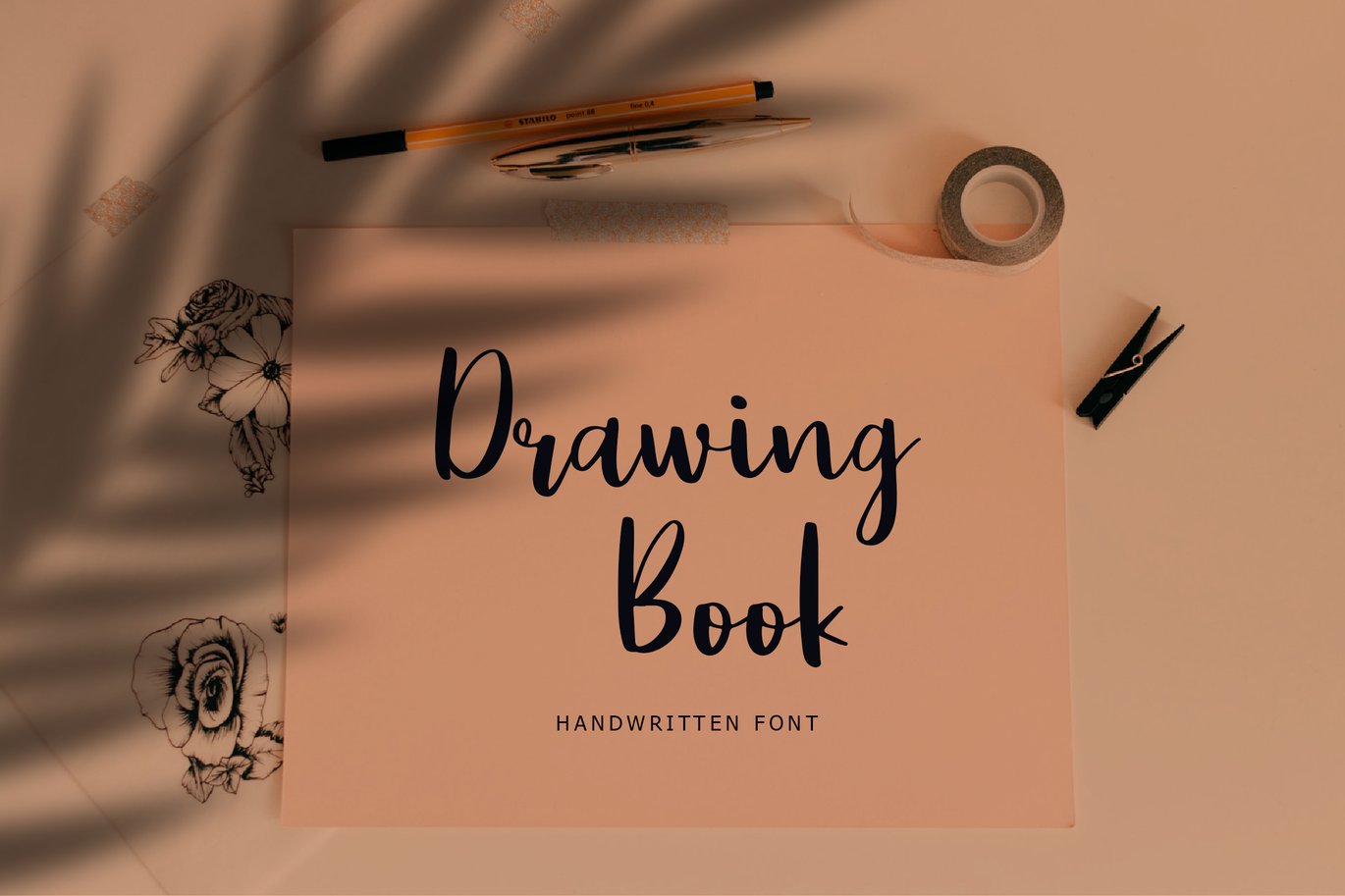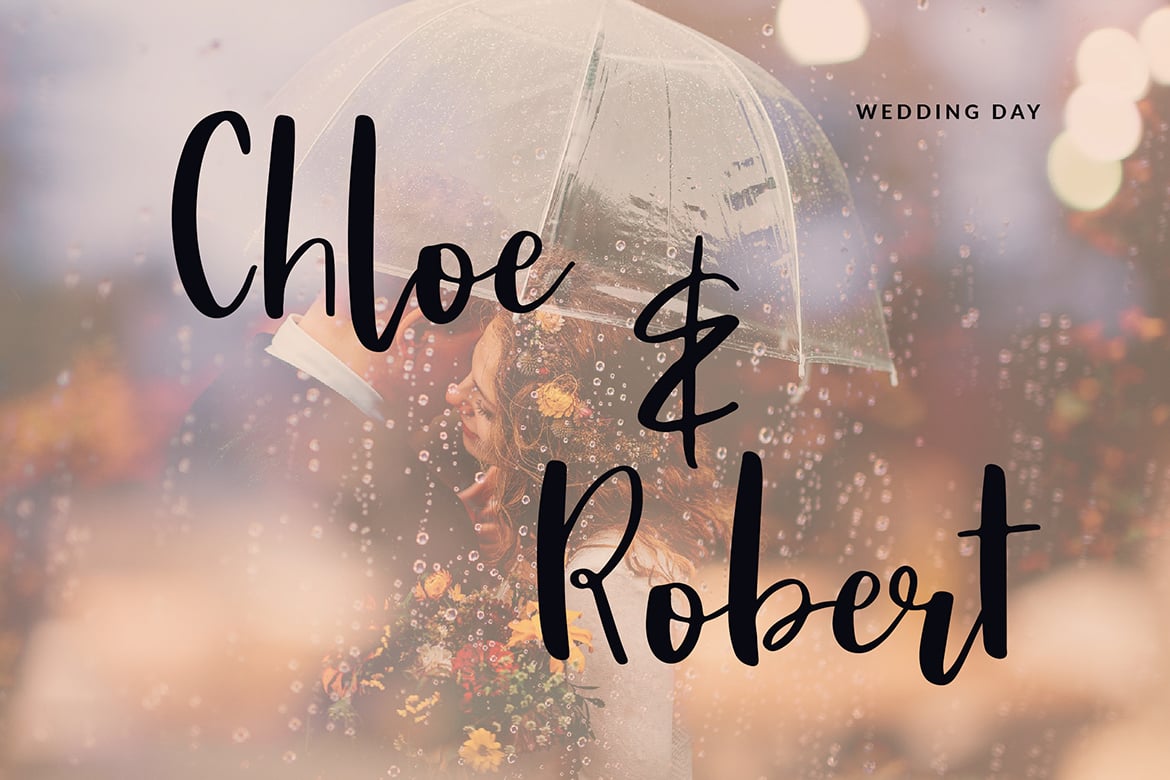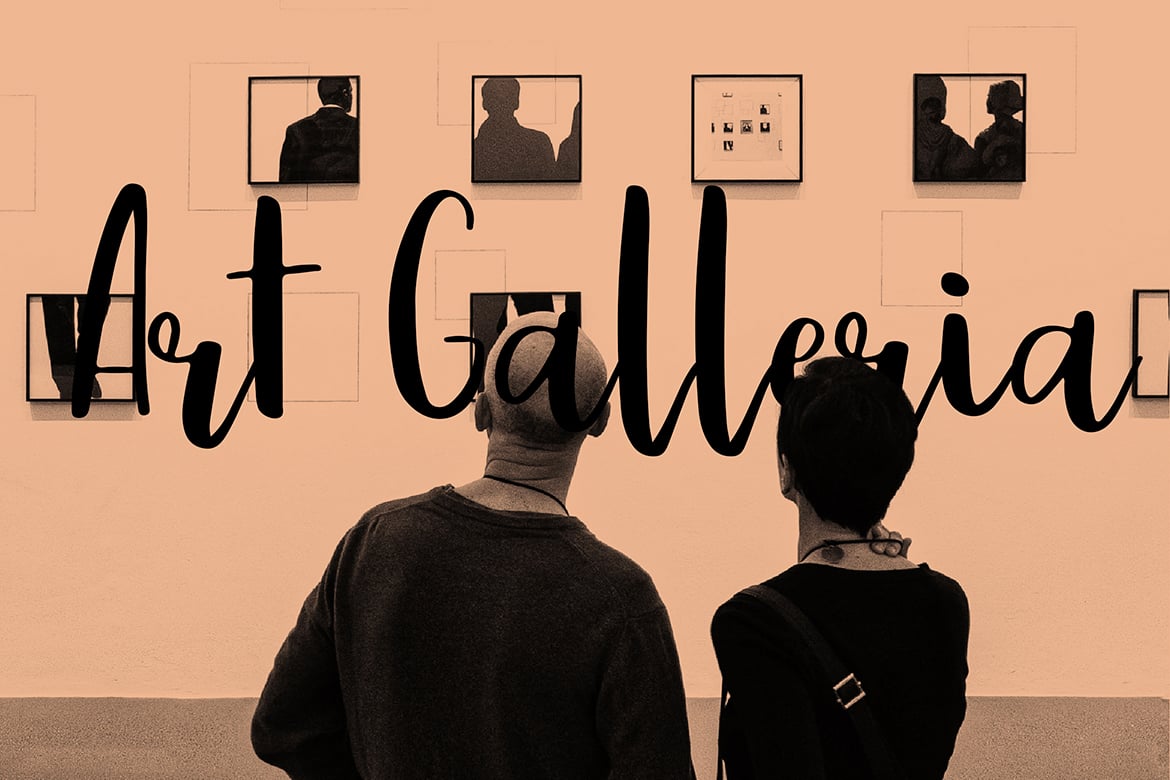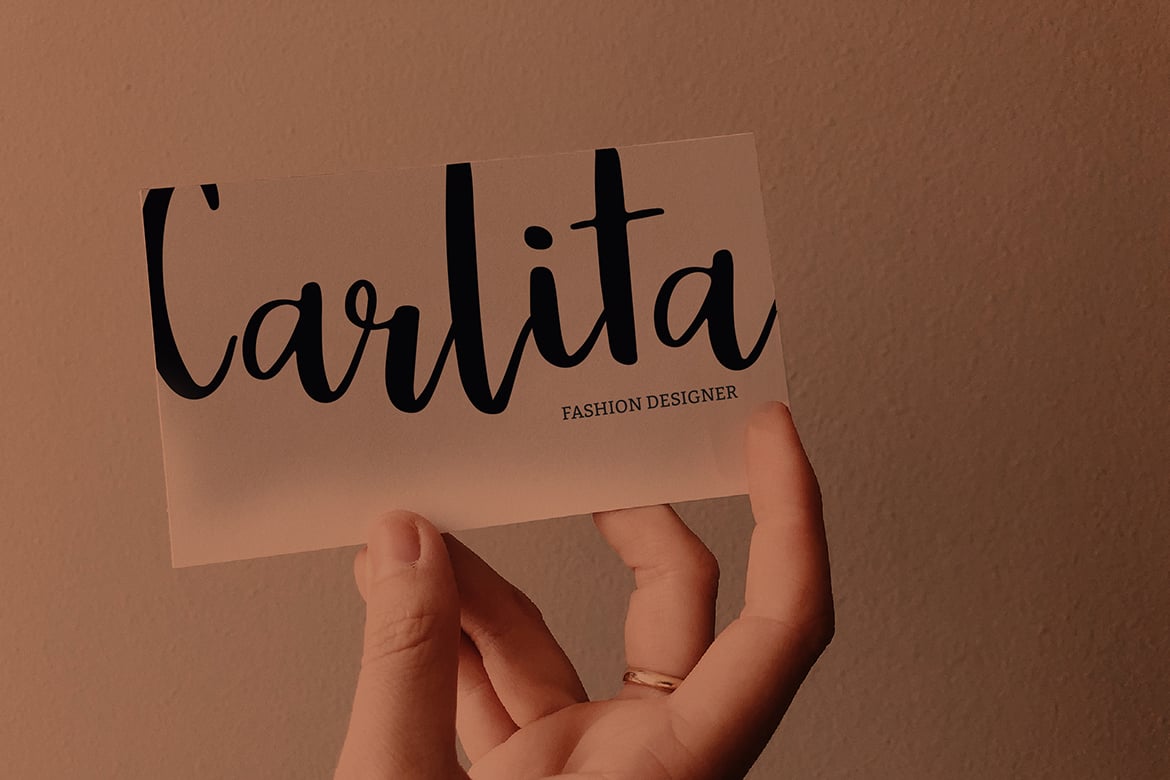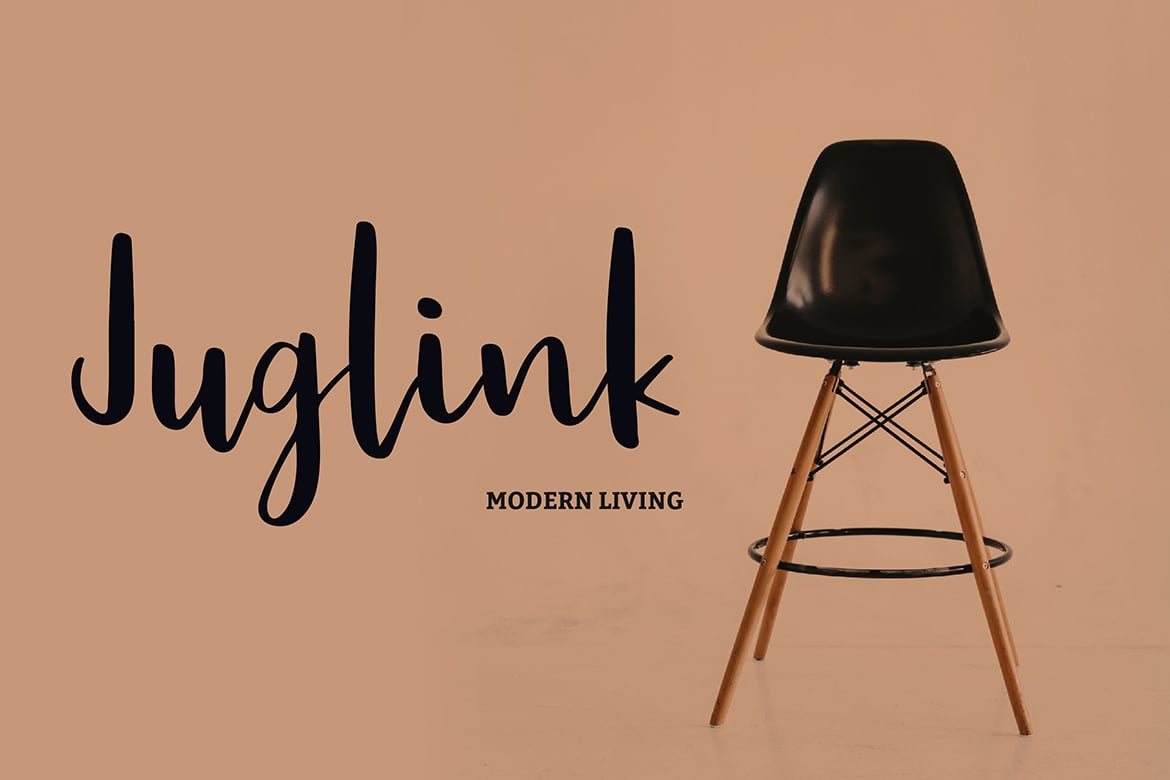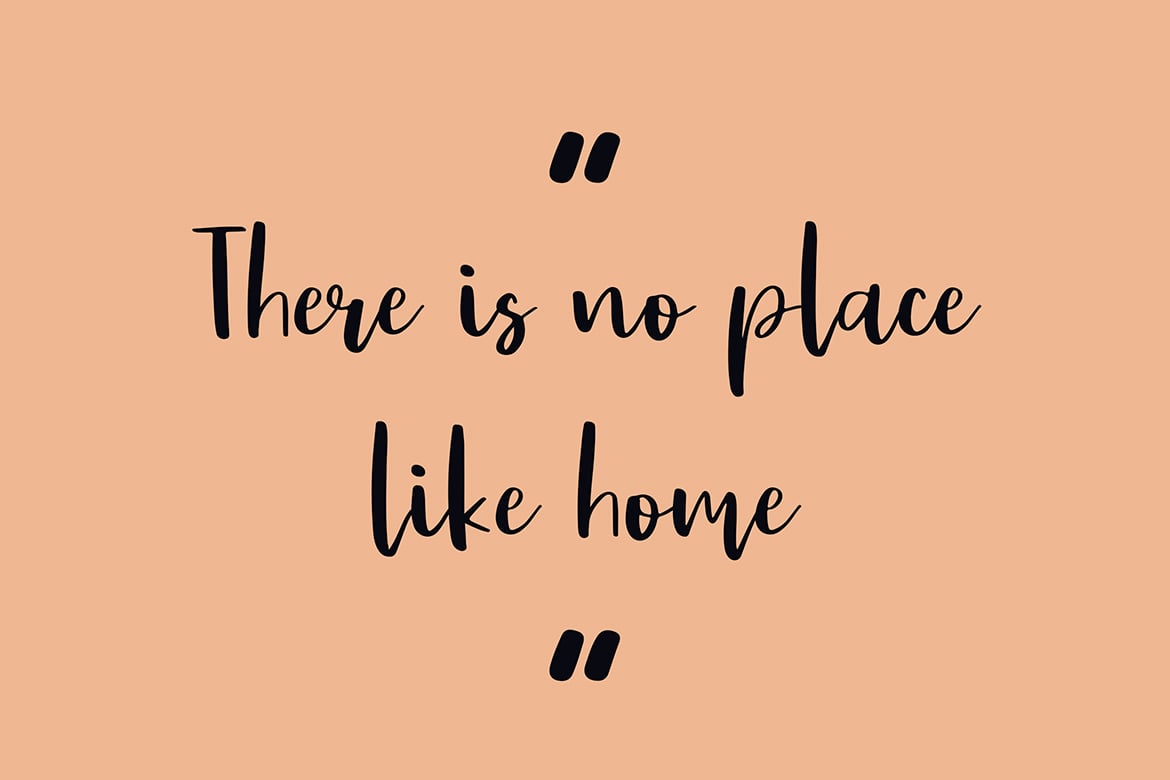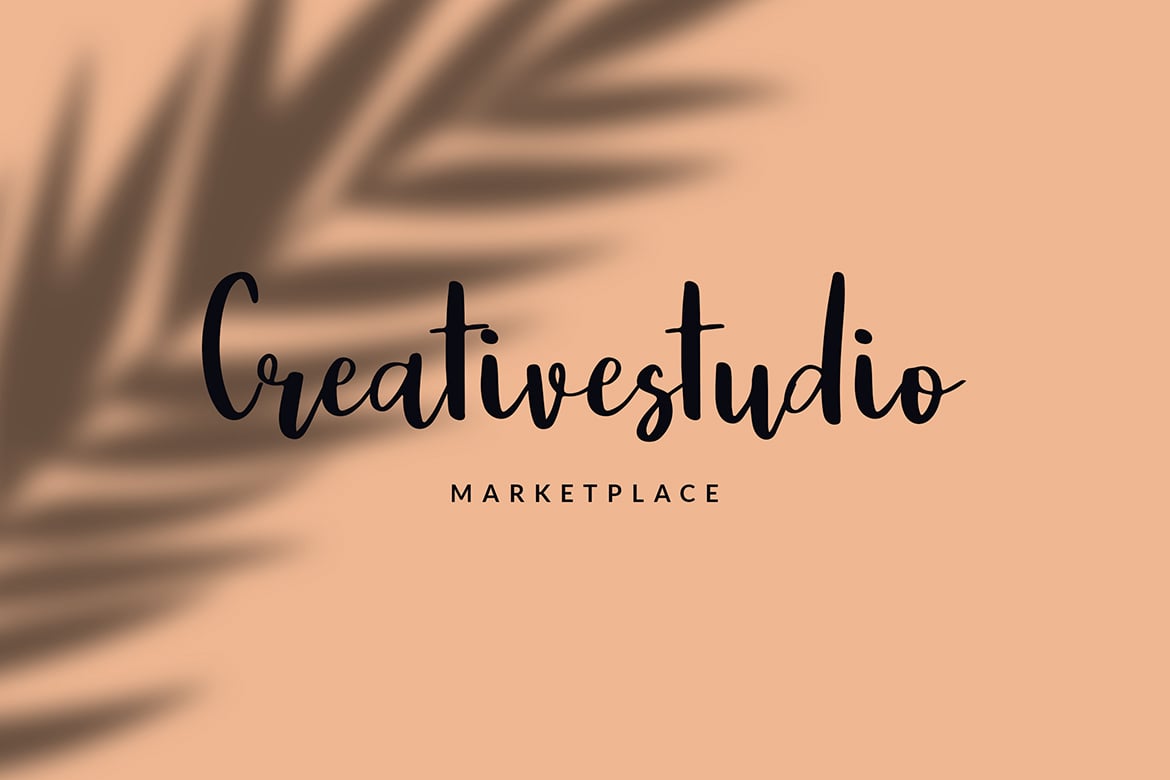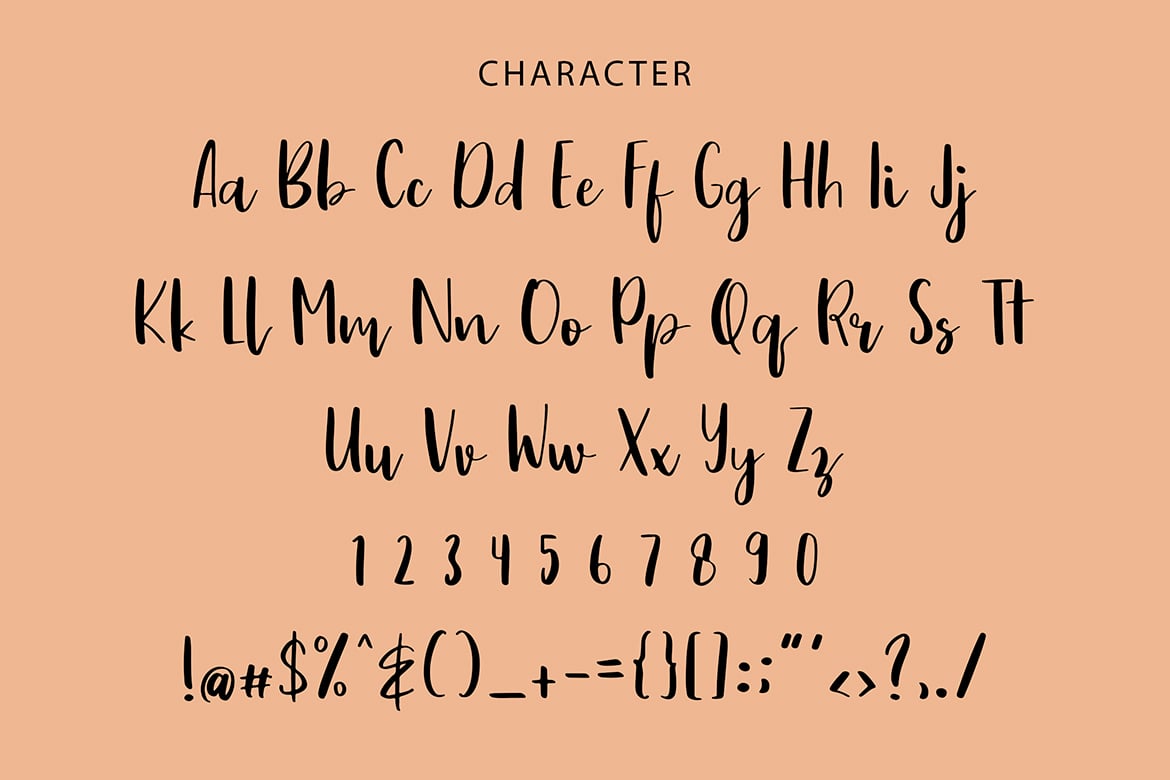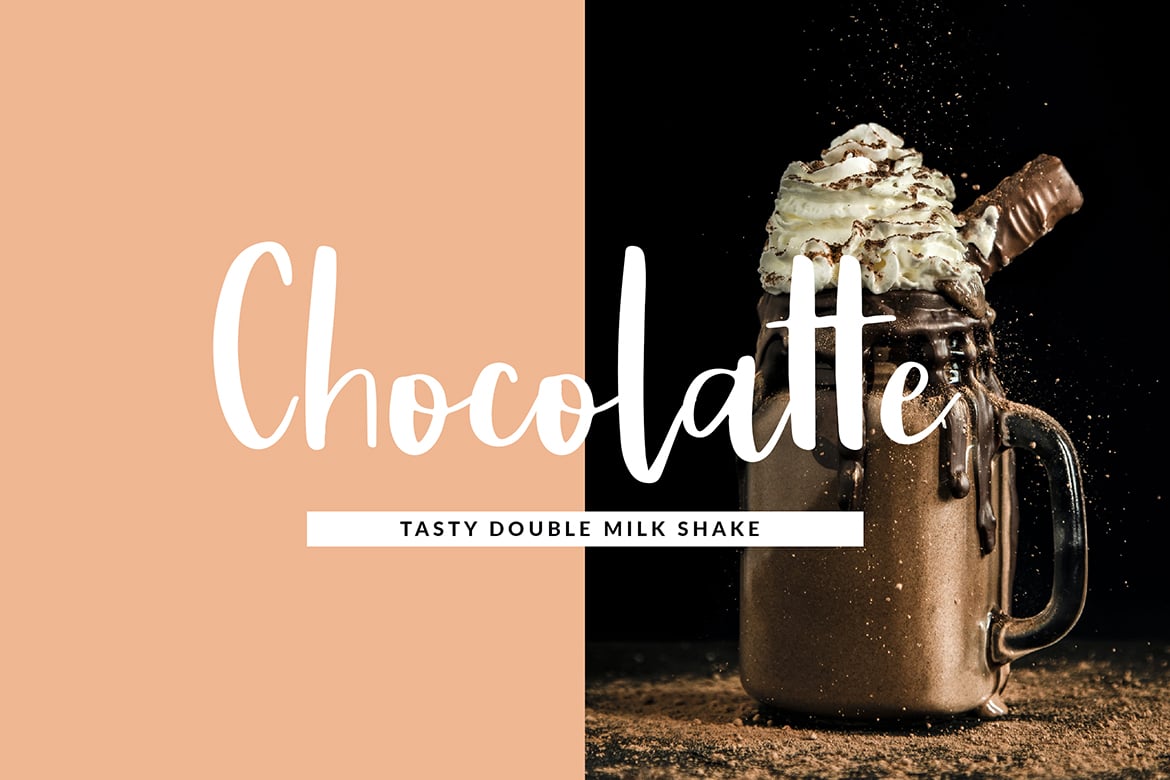
Drawing Book Modern Brush Script Font
Drawing Book Brush Script Font is a modern look of Script font, can make your text appear elegant, luxurious, and modern!